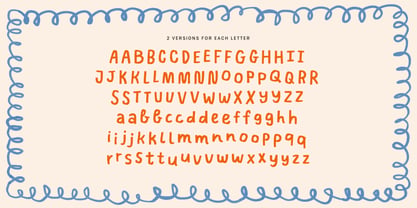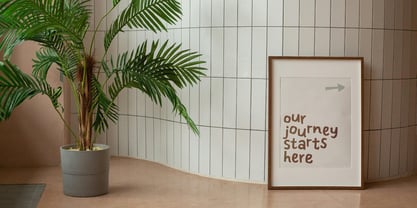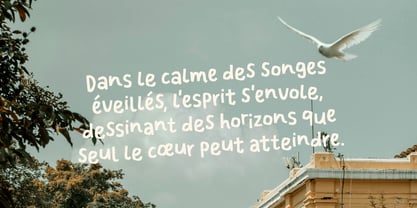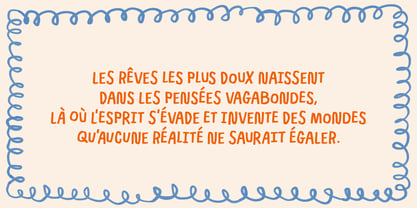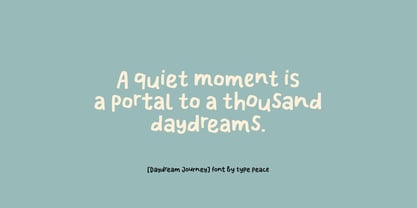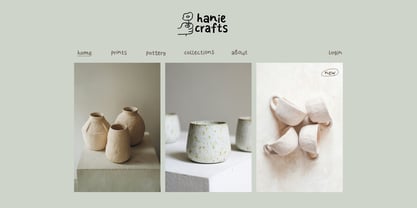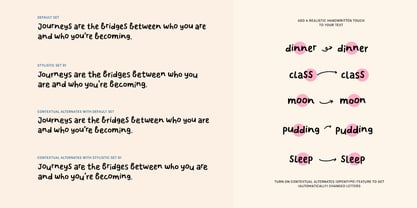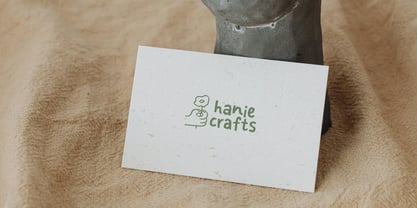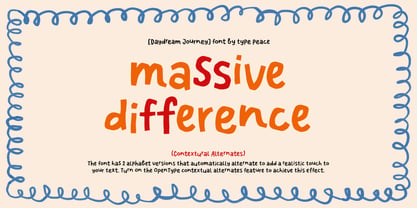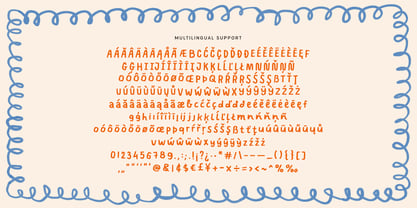
Daydream Journey
by type peace
The Daydream Journey Font Family was designed by Hai Anh Nguyen and published by type peace. Daydream Journey contains 1 styles. More about this family
Daydream Journey is a multilingual unique handmade typeface inspired by the charm of crafts and the playful edges of papercut shapes. Perfect for adding a personal, artisanal touch to your designs, from stationery to branding. Enable the Contextual Alternates feature to alternate between different letter versions, giving your text an authentic and dynamic feel.